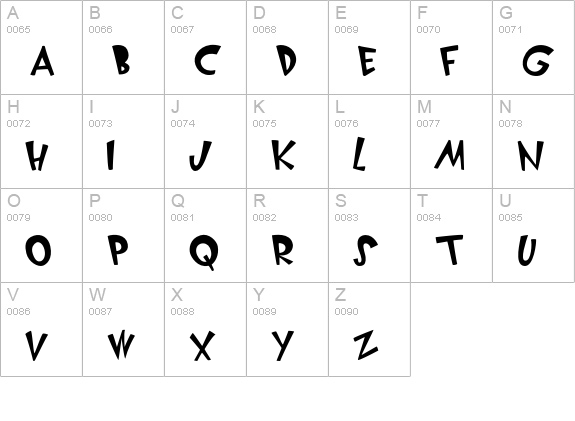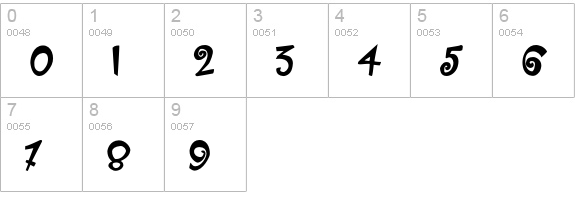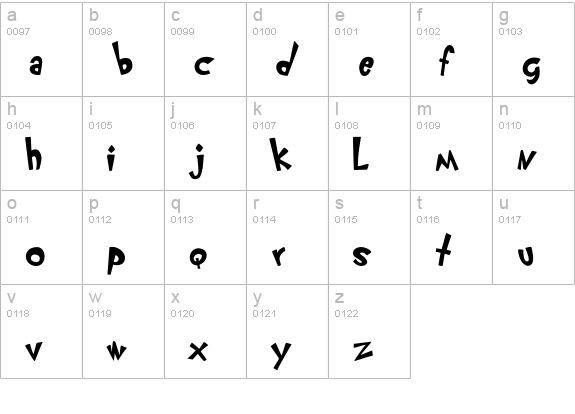
KlunderScript-Bold Font Details
KlunderScript-Bold is a strong, high-contrast variant in the KlunderScript typeface family \xE2\x80\x94 well suited to headlines, attention-grabbing titles, and strong calls-to-action.
KlunderScript-Bold is a stunning and attention-grabbing font that is perfect for making a bold statement in any design project. With its unique and stylish letterforms, KlunderScript-Bold adds a touch of elegance and sophistication to any text. Whether you are creating a logo, designing a poster, or crafting a headline, this font will surely make your message stand out from the crowd. One of the best things about KlunderScript-Bold is that it is available for free! Yes, you read that right. This amazing font can be freely downloaded at FontsMarket.com. So, not only do you get a high-quality and visually appealing font, but you also get it without spending a penny. The versatility of KlunderScript-Bold is another reason why it is a must-have font. Whether you are going for a modern and edgy look or a classic and timeless vibe, this font can effortlessly adapt to your design needs. Its bold and strong appearance makes it perfect for headlines and titles, while its subtle curves and flowing strokes add a touch of elegance to body text. The attention to detail in KlunderScript-Bold is truly remarkable. Each letter has been meticulously crafted to ensure a harmonious balance between legibility and style. The result is a font that is both visually captivating and easy to read, making it suitable for a wide range of applications. So, if you are looking for a font that will make a powerful statement and elevate your design to new heights, look no further than KlunderScript-Bold. And remember, it is freely available to download at FontsMarket.com, so you can start using it in your projects right away. Don't miss out on this fantastic opportunity to enhance your designs with this extraordinary font!